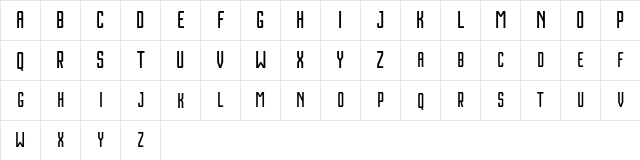
Houston Regular
Design Context for Houston Typeface
Houston offers clean, dependable letterforms without strong stylistic allegiance, making it a practical choice for designers who need flexibility.